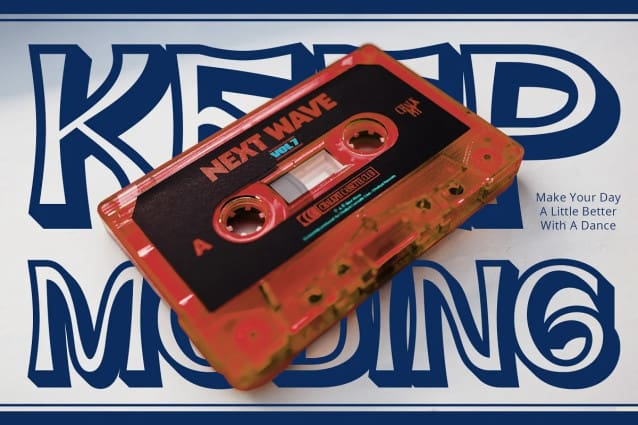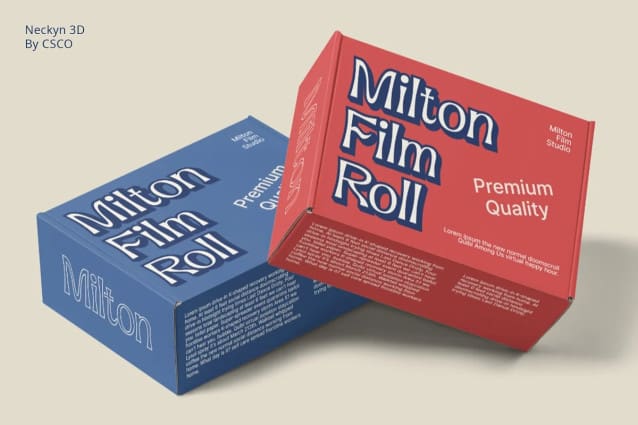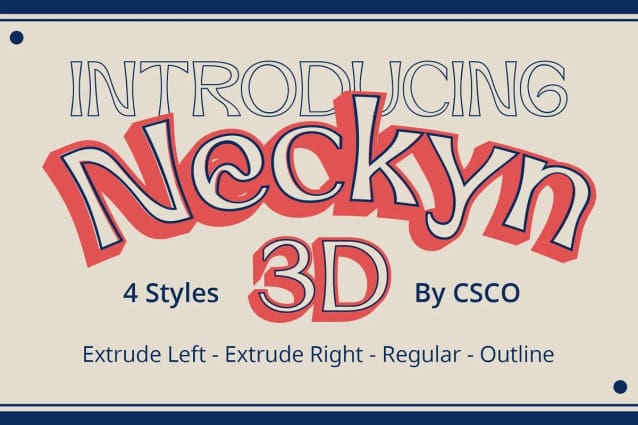
Neckyn 3D Font
Neckyn 3D Font, is a dimensional illusion that brings your text to life. With a captivating 3D extrude effect, each character pops off the display.
Artistic Outlines The font boasts artistic outlines that further enhance its 3D appearance, ensuring your text remains bold and eye-catching in any design context.
Flowing Psychedelia Inspired by psychedelic art, Neckyn 3D features a myriad of flowing shapes, creating a visual journey reminiscent of a mind-bending trip through time and space.
Versatile Application From posters to digital designs, Neckyn3D’s versatility shines. Its unique 3D form ensures that your text becomes a focal point, demanding attention in every application.
Conclusion In conclusion, Neckyn 3D isn’t just a font; it’s a psychedelic experience. Elevate your designs with this unique typeface, where every letter is a journey into the creative unknown, leaving a lasting impression on your audience.